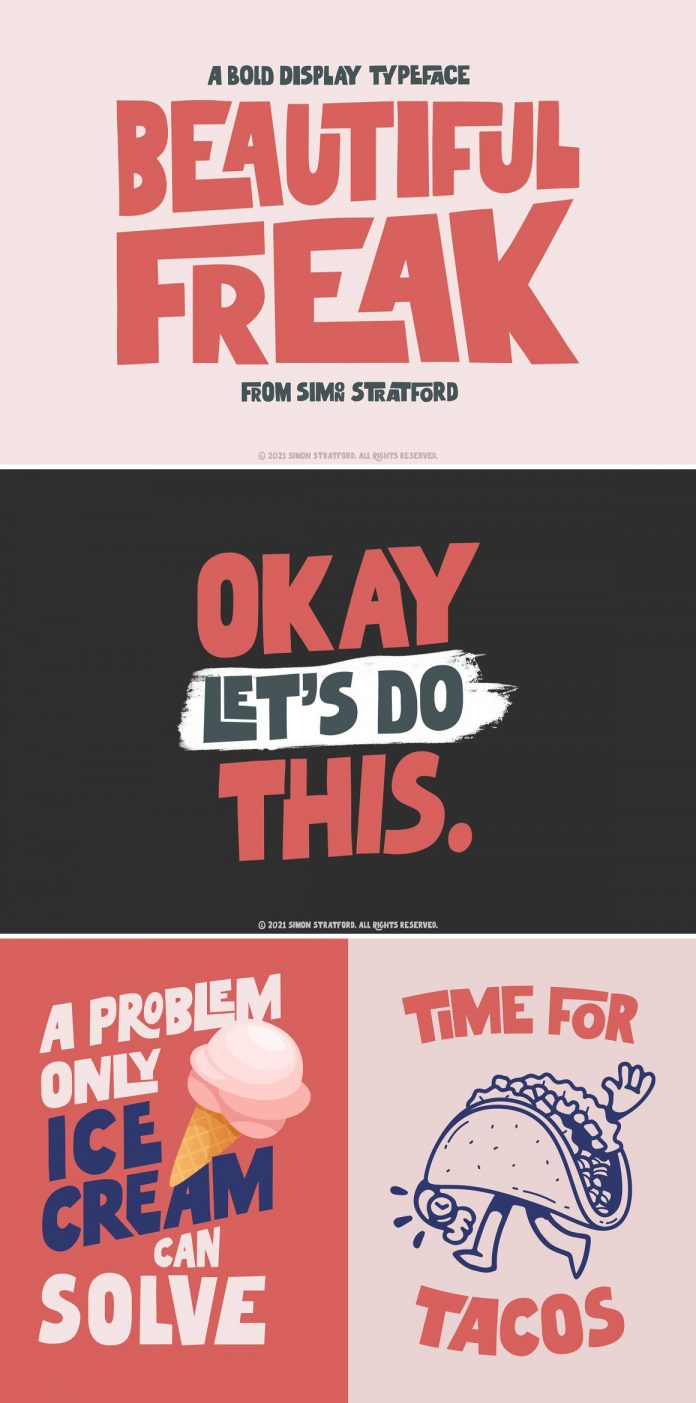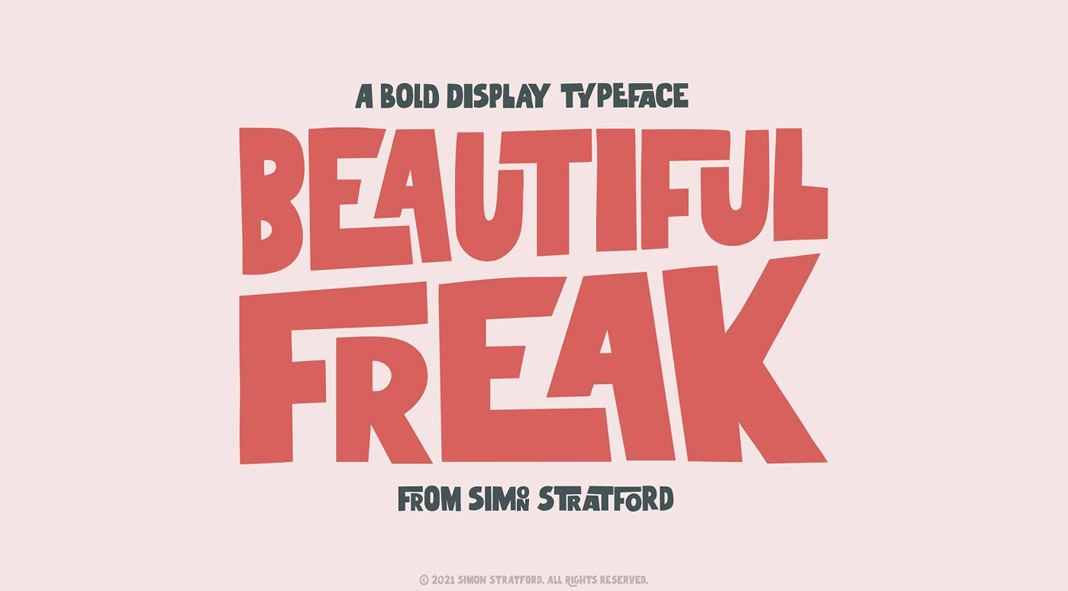
Beautiful Freak, a bold display typeface designed and published by Simon Stratford.
Simon Stratford, a London-based designer created this bold, quirky display font named ‘Beautiful Freak’. The typeface conveys this dose of fun and trendy street-style vibe. You can use it for posters, clothing, branding, packaging, and more. The Beautiful Freak font will give your typographic work a striking look and feel.
The font was hand-drawn by Simon Stratford. That’s why the font’s outlines are somewhat irregular and quirky. Its characters seem to jump around the baseline giving it a charming but urban style. Beautiful Freak comes with a range of alternate letters and ligatures. Just click on the following link to learn more about all typographic features and licensing options.